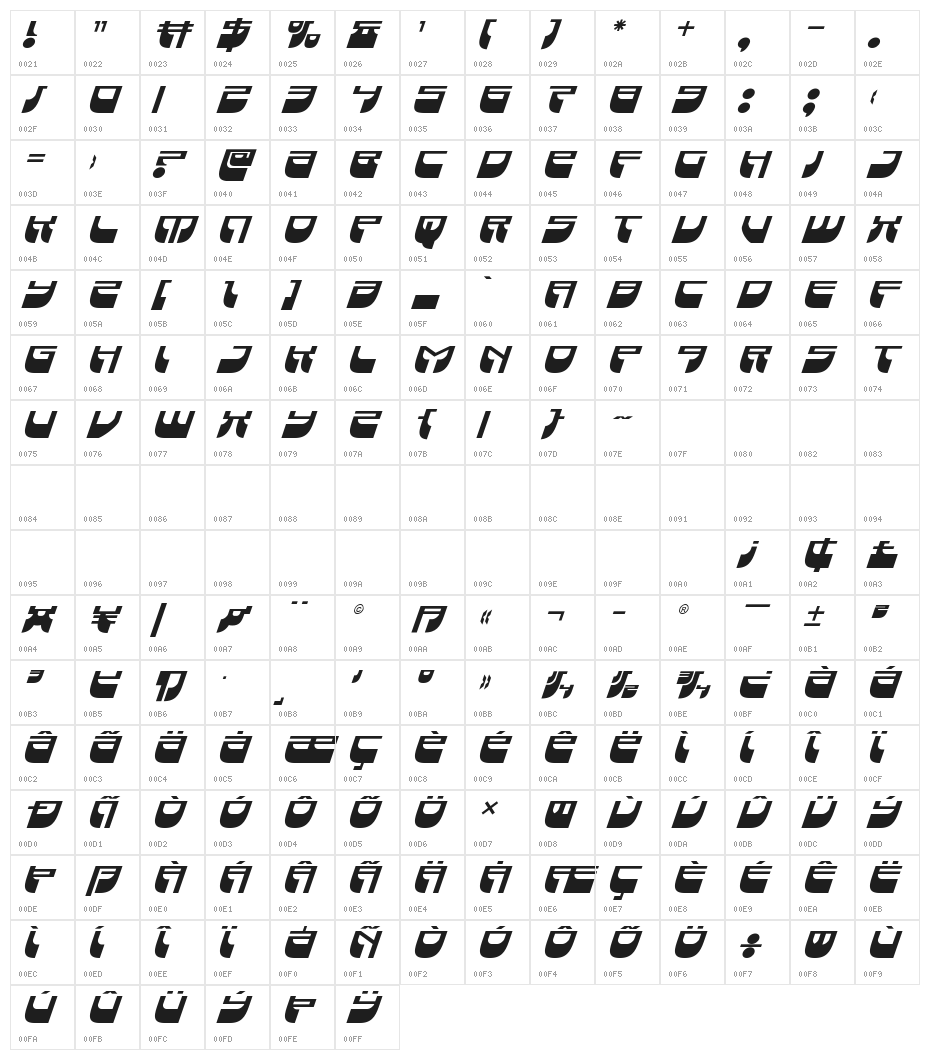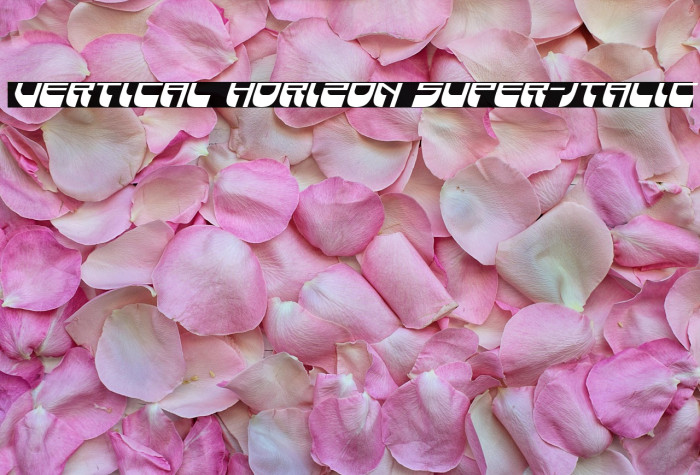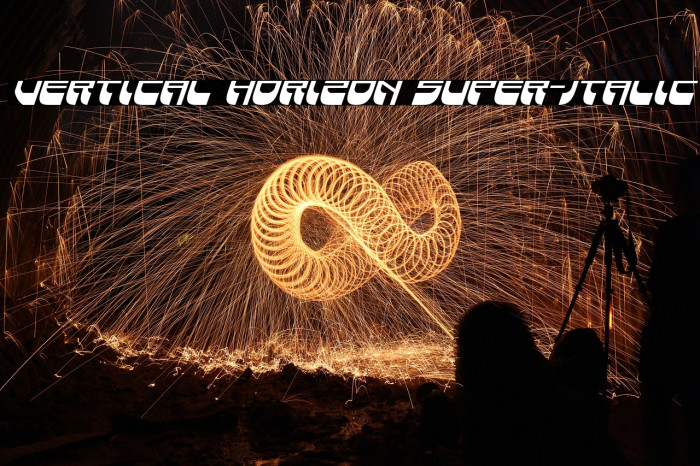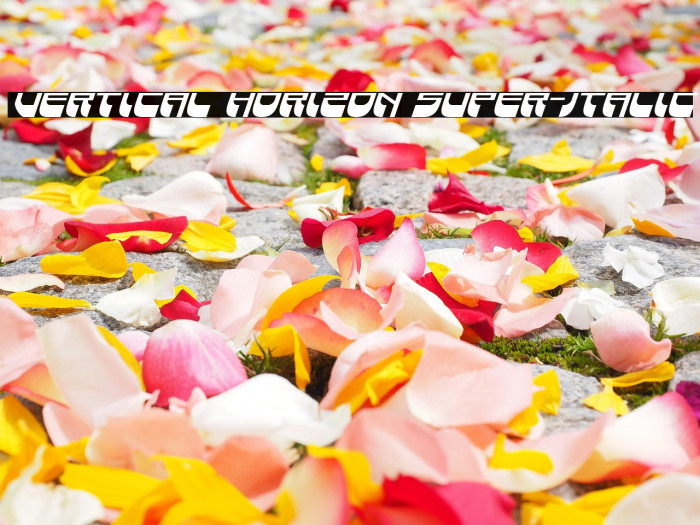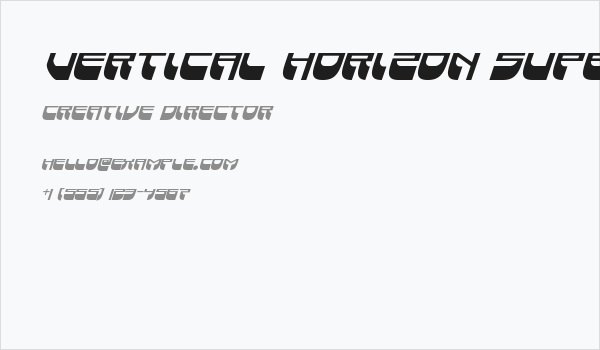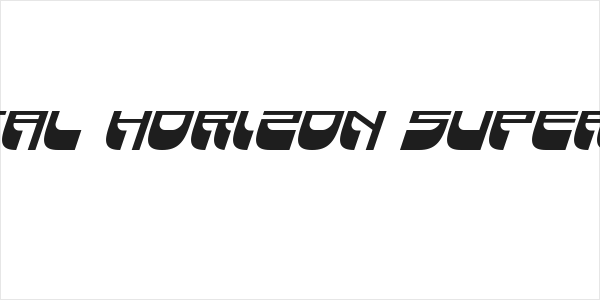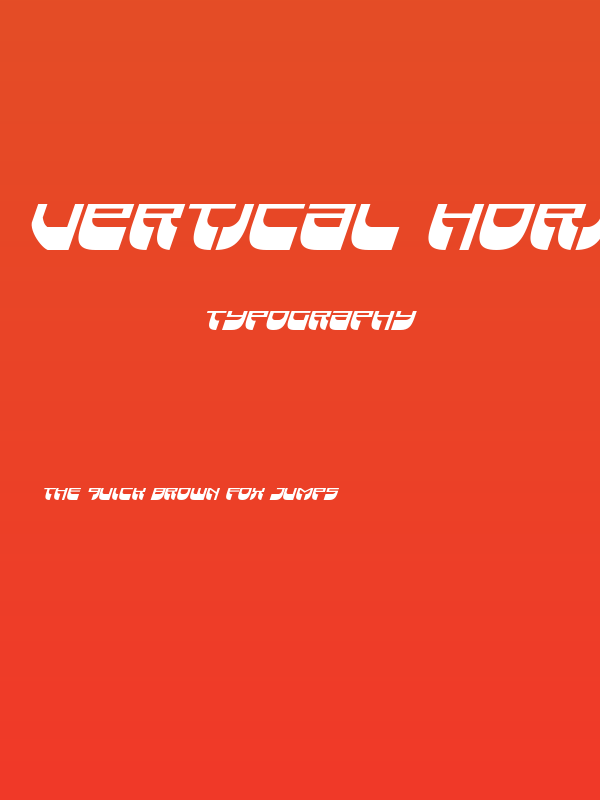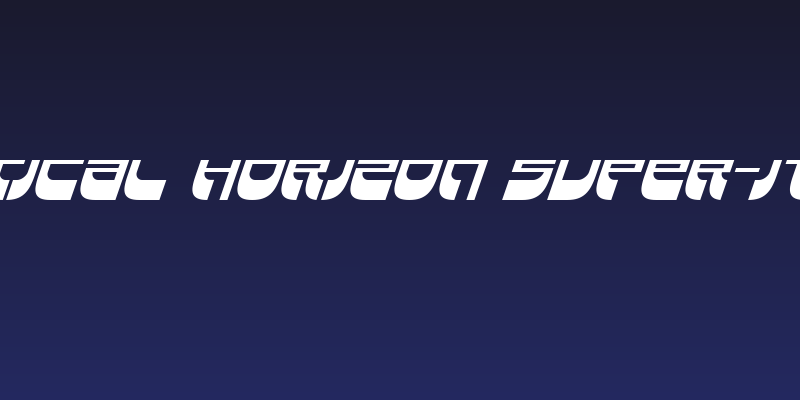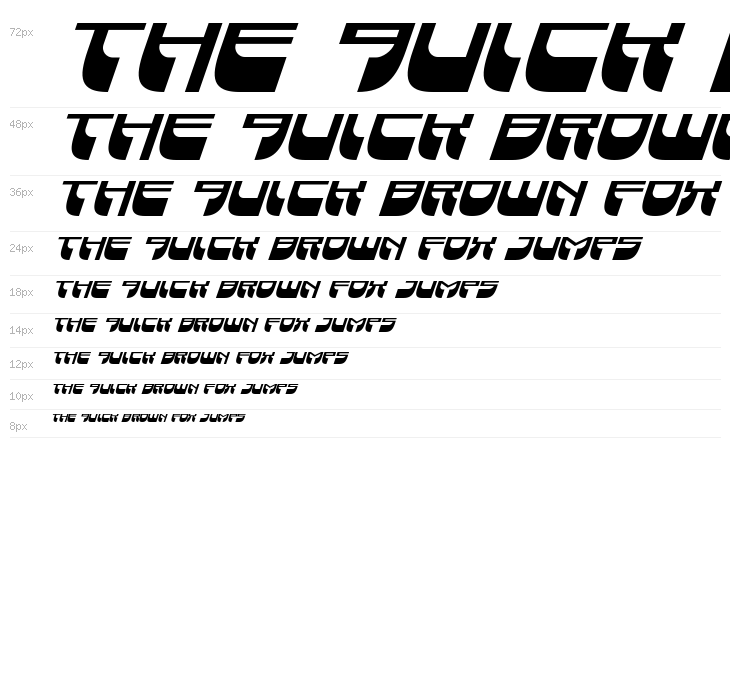
Vertical Horizon Super-Italic Font
Vertical Horizon Super-Italic Description
This font features a bold and dynamic style with a futuristic and italicized appearance. The characters are designed with sharp angles and a forward-leaning posture, giving a sense of motion and speed. The strokes are thick and consistent, providing a strong visual impact. Each letter is uniquely crafted with a modern aesthetic, making it suitable for attention-grabbing designs. The numbers and special characters maintain the same bold and angular style, ensuring uniformity across all elements.